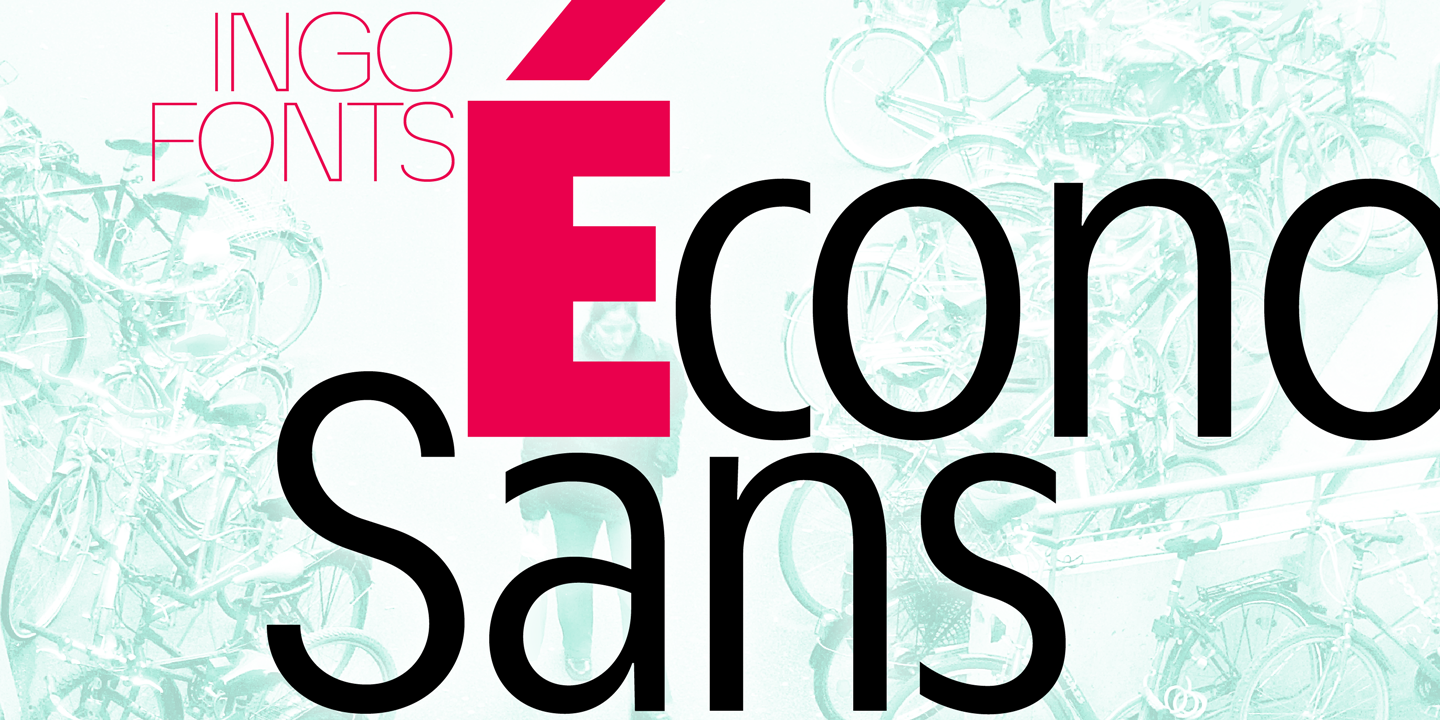
ÉconoSans Pro Font is perfect for financial services branding, economic research publications, business consulting materials, corporate annual reports, banking communications, investment advisory presentations, economic development campaigns, cost-effective marketing solutions, budget-conscious design projects, and efficient business documentation. This pragmatic typeface excels in applications where economic efficiency and financial clarity need to be communicated with professional reliability and cost-conscious sophistication that maximizes value while maintaining quality standards.
What makes ÉconoSans Pro Font exciting is its remarkable ability to deliver maximum typographic impact while optimizing resource efficiency through its intelligently designed letterforms that balance visual quality with practical economy. The font embodies the principles of smart financial management with its streamlined construction and efficient proportions that suggest careful resource allocation and strategic decision-making. Its thoughtfully optimized character details and economical personality create an atmosphere of fiscal responsibility that resonates with business professionals who understand the value of making every resource count.
The ÉconoSans Pro Font family includes Light, Regular, Medium, Bold, and Black weights, each engineered for optimal performance across different applications while maintaining cost-effective file sizes. The family features corresponding Italic styles and includes extended character sets with financial symbols, currency notation, and international language support. Special condensed variants provide additional space efficiency for data-heavy applications requiring maximum information density without sacrificing readability.
Whether you're developing financial brand identities, economic publications, or budget-conscious business materials, ÉconoSans Pro Font Free Download delivers the perfect balance of quality and efficiency your economically-minded projects deserve. Its fiscally responsible character and efficient styling make it an invaluable choice for financial institutions, consulting firms, and businesses working in economics, finance, and cost-conscious sectors where smart resource management and professional credibility are essential for demonstrating financial wisdom and operational efficiency.